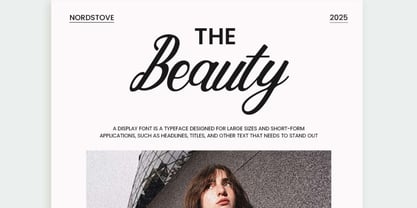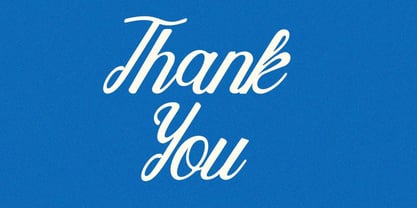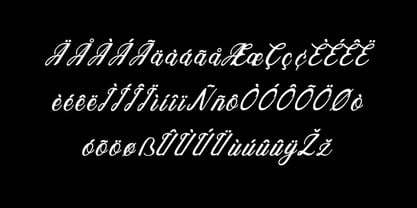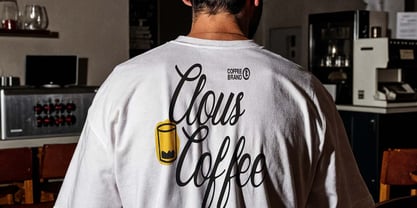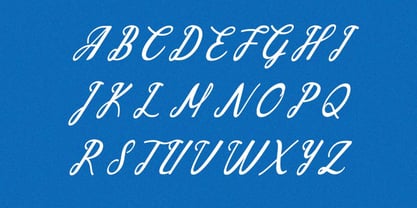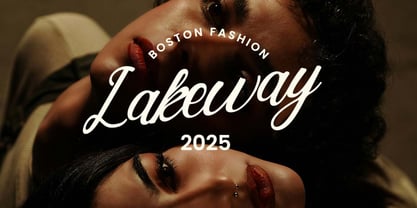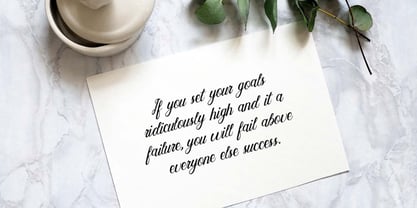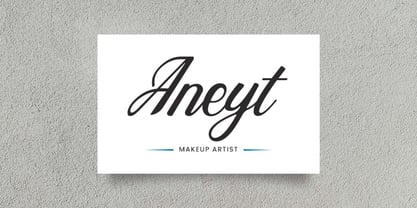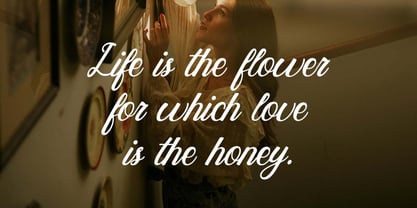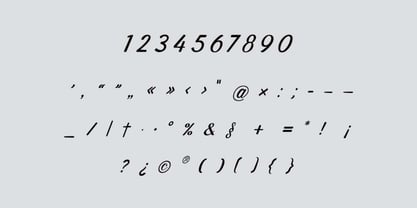
VintageRegal
by UICreative
The VintageRegal Font Family was designed by Hero and published by UICreative. VintageRegal contains 1 styles.
Vintage Regal Vintage Handwritten Font. The modern display font feels beautiful classy, elegant, and stylish. This font is ideally suited for a wide variety of projects, such as signature, stationery, logo, wedding, typography quotes, magazine or book covers, website headers, branding, and more. Also, fashion-related branding or editorial design displays both masculine and feminine qualities.